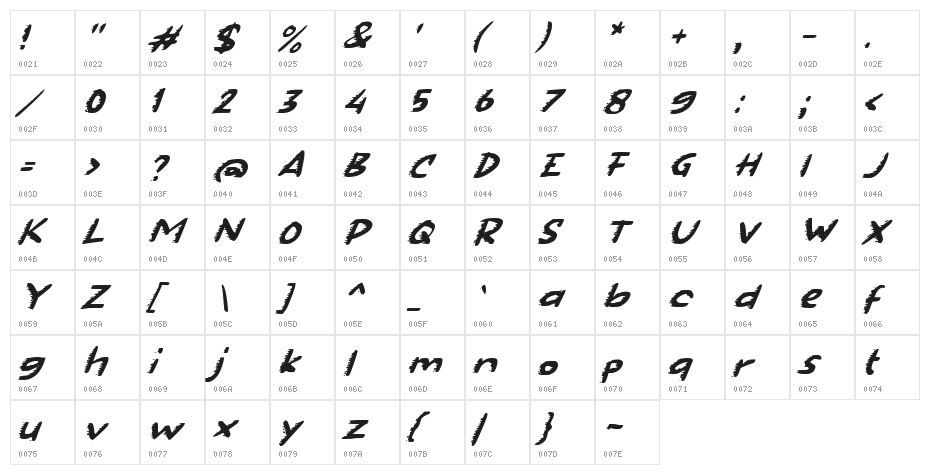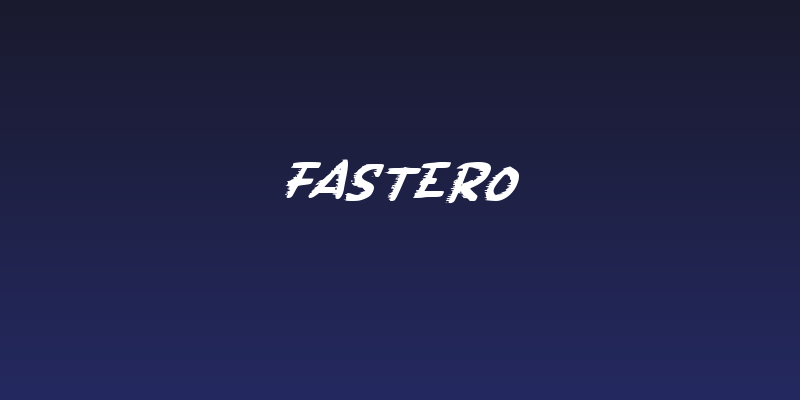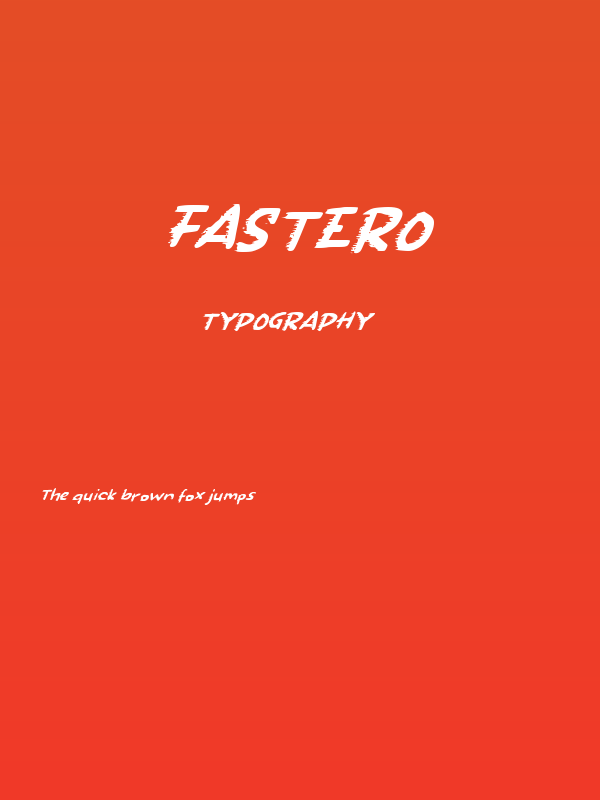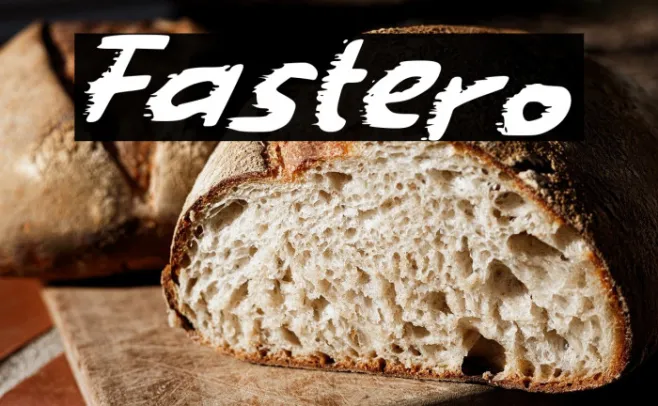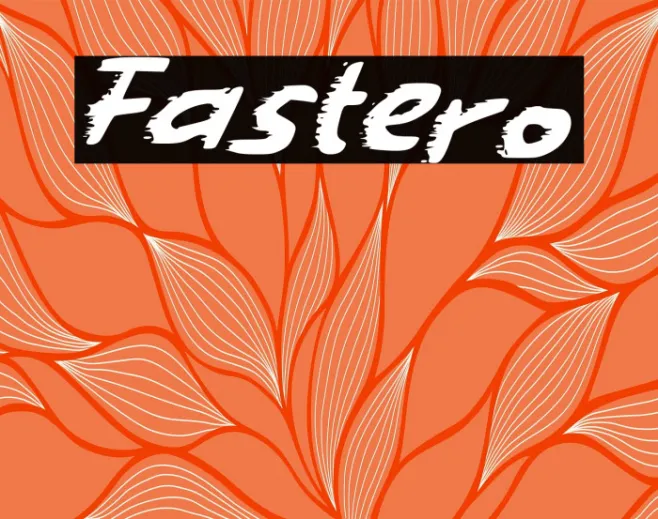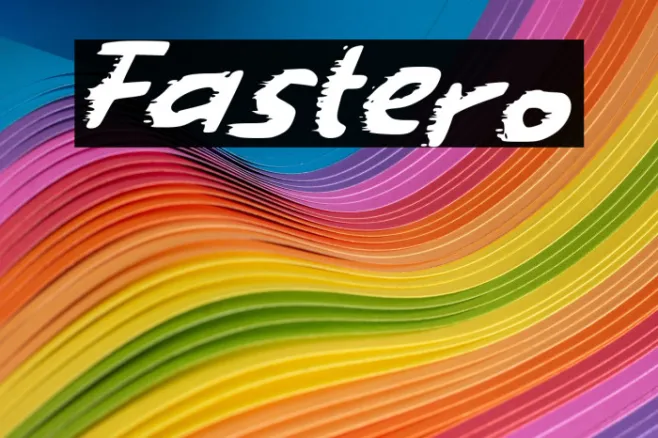
Fastero Font
Fastero Description
This font features a bold, dynamic style with a brush-like texture that gives it a sense of movement and energy. The characters are slightly slanted, adding to the impression of speed and fluidity. The strokes are thick and uneven, creating a hand-painted effect that is both artistic and expressive. The uppercase and lowercase letters maintain a consistent style, while the numerals and special characters are equally bold and impactful. This font is ideal for projects that require a strong visual presence and a touch of creativity.
| Proposed Projects | Ideal for posters, logos, branding, and any design requiring a bold, artistic touch. |